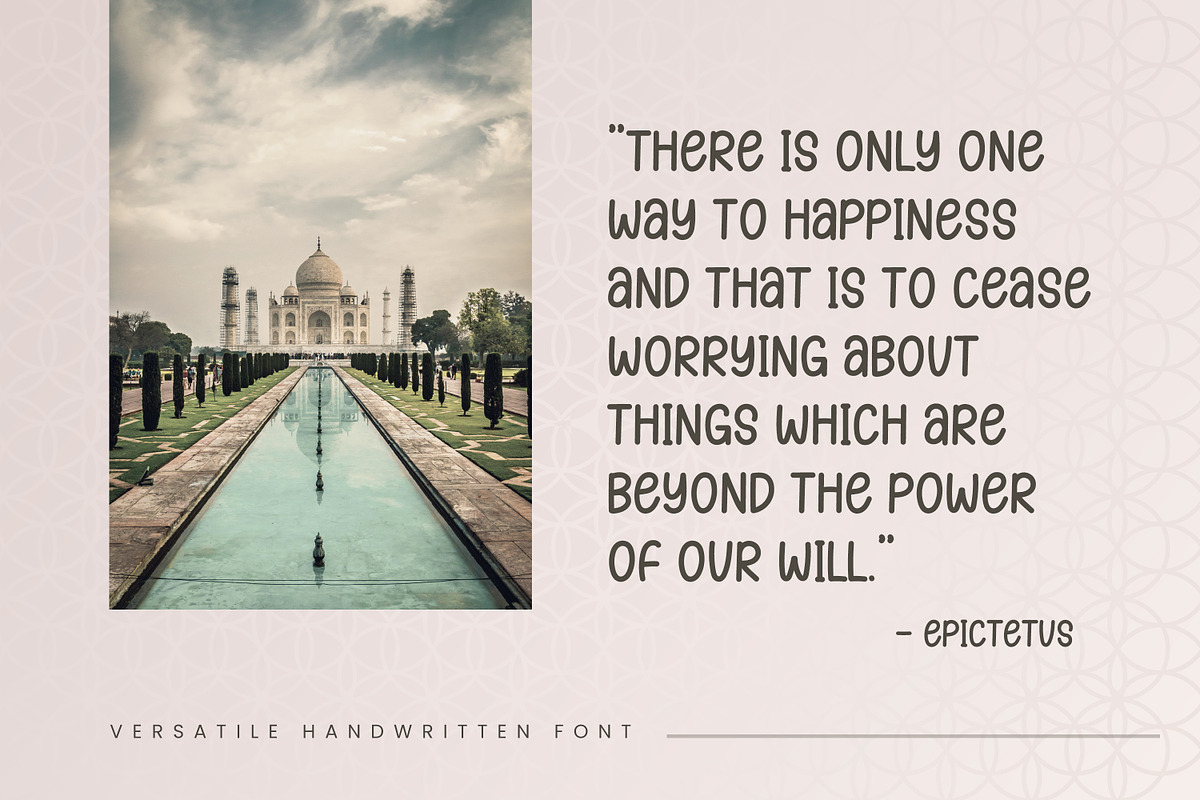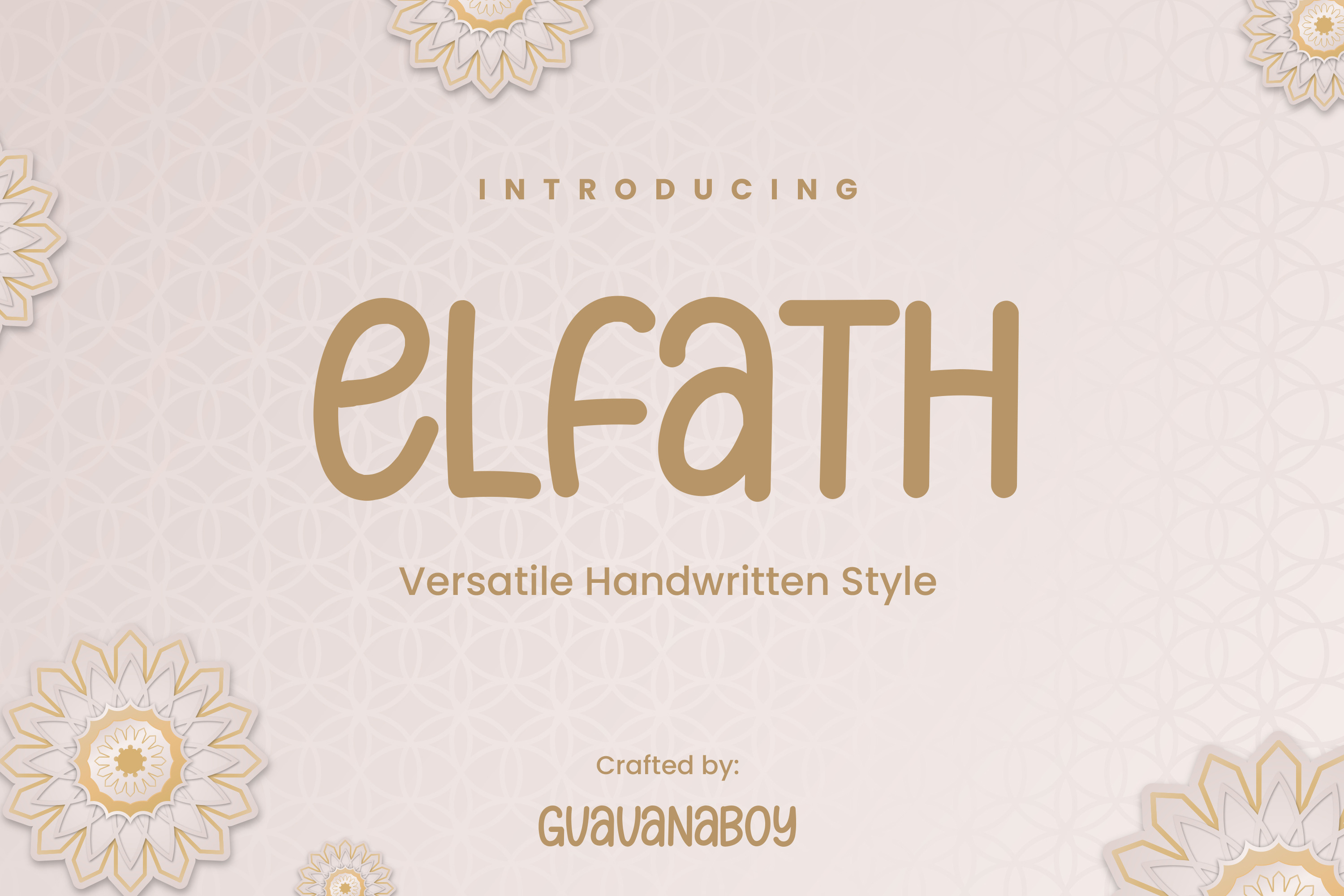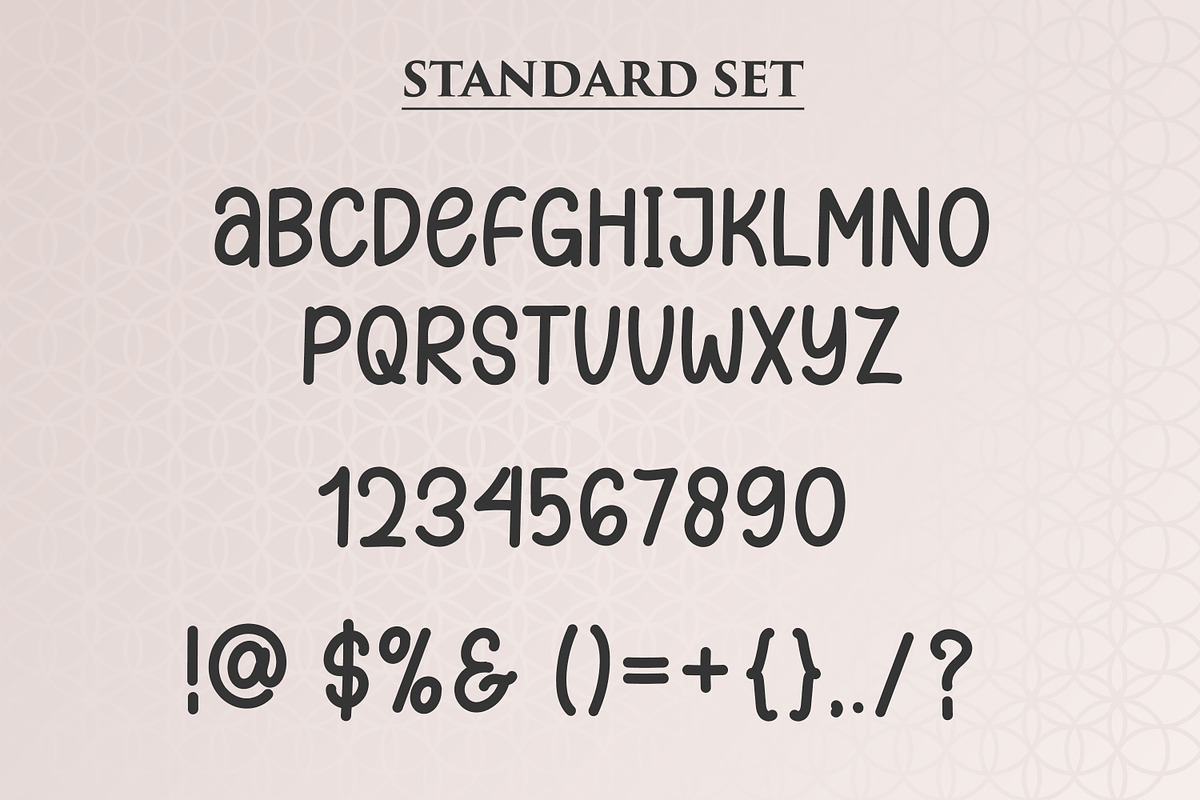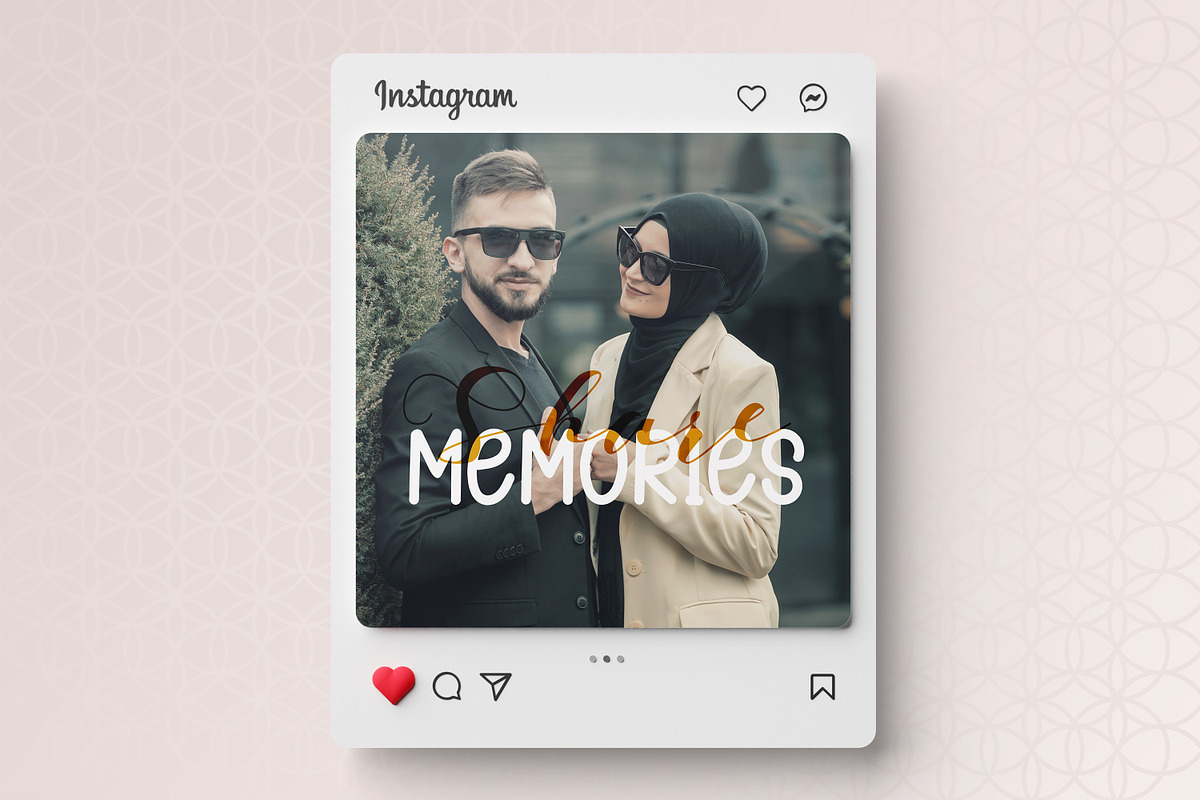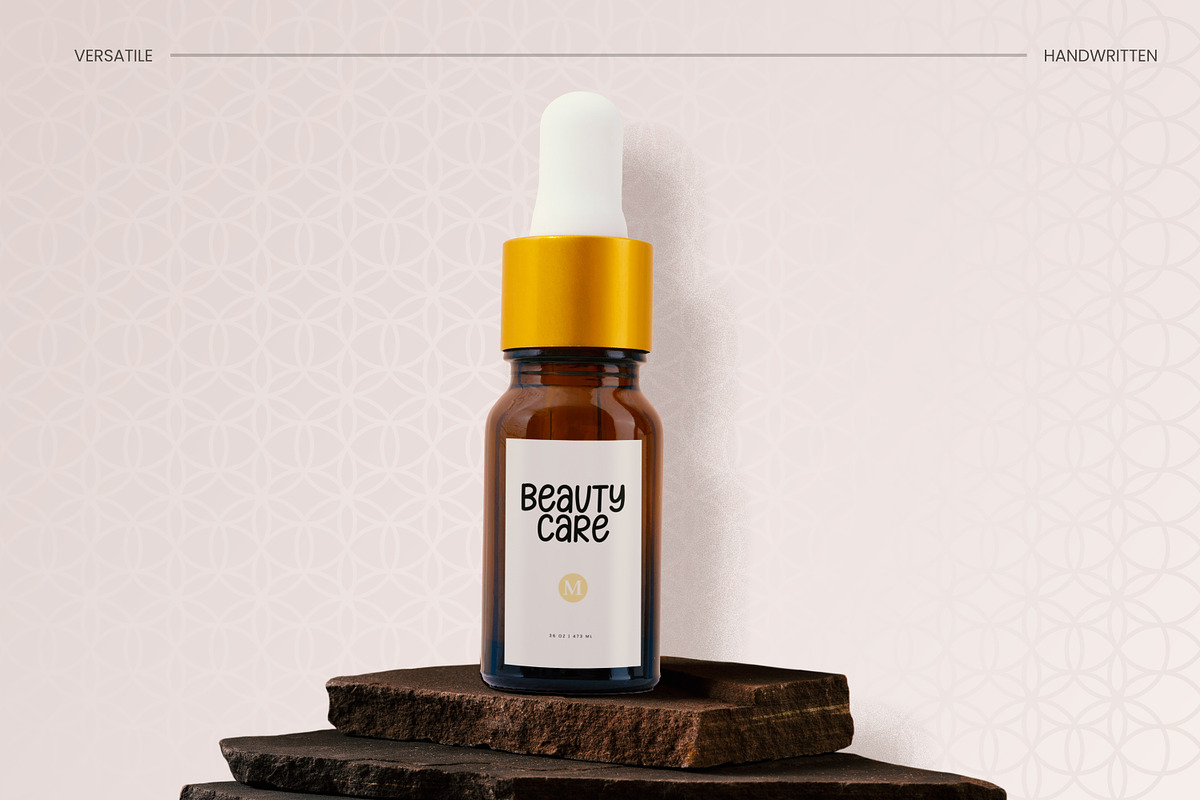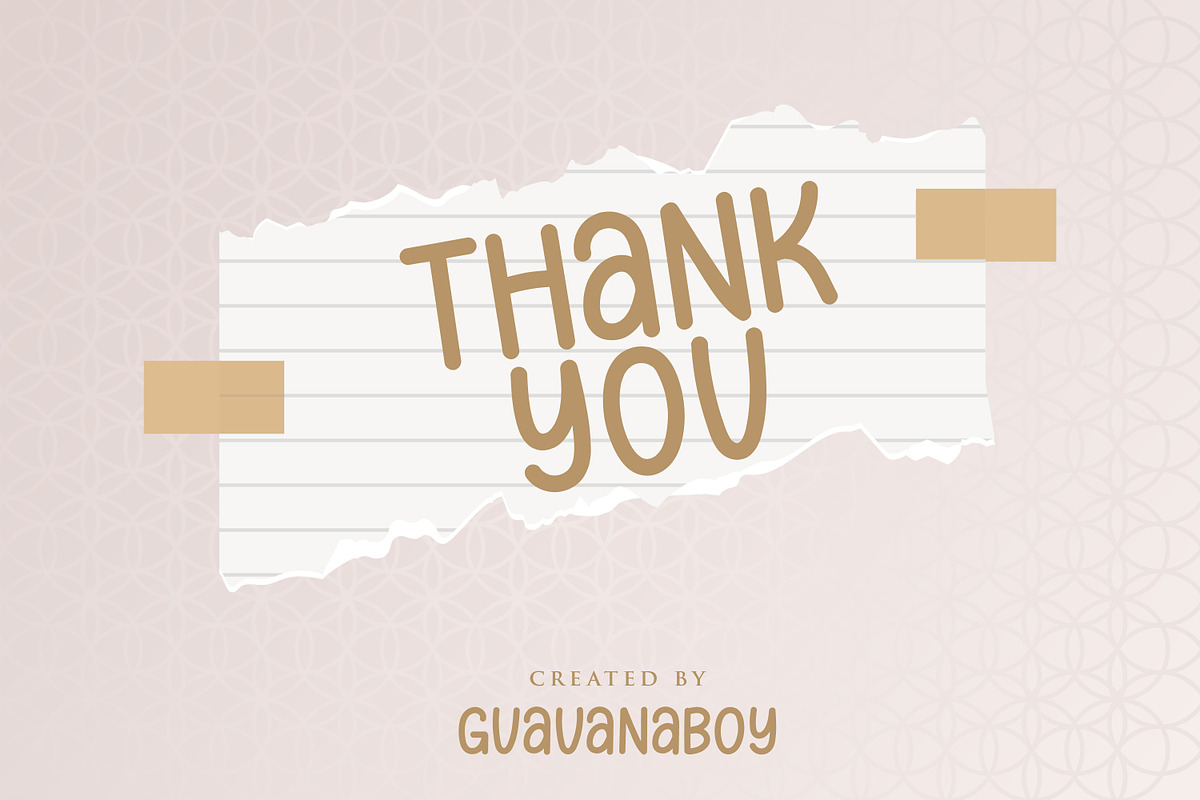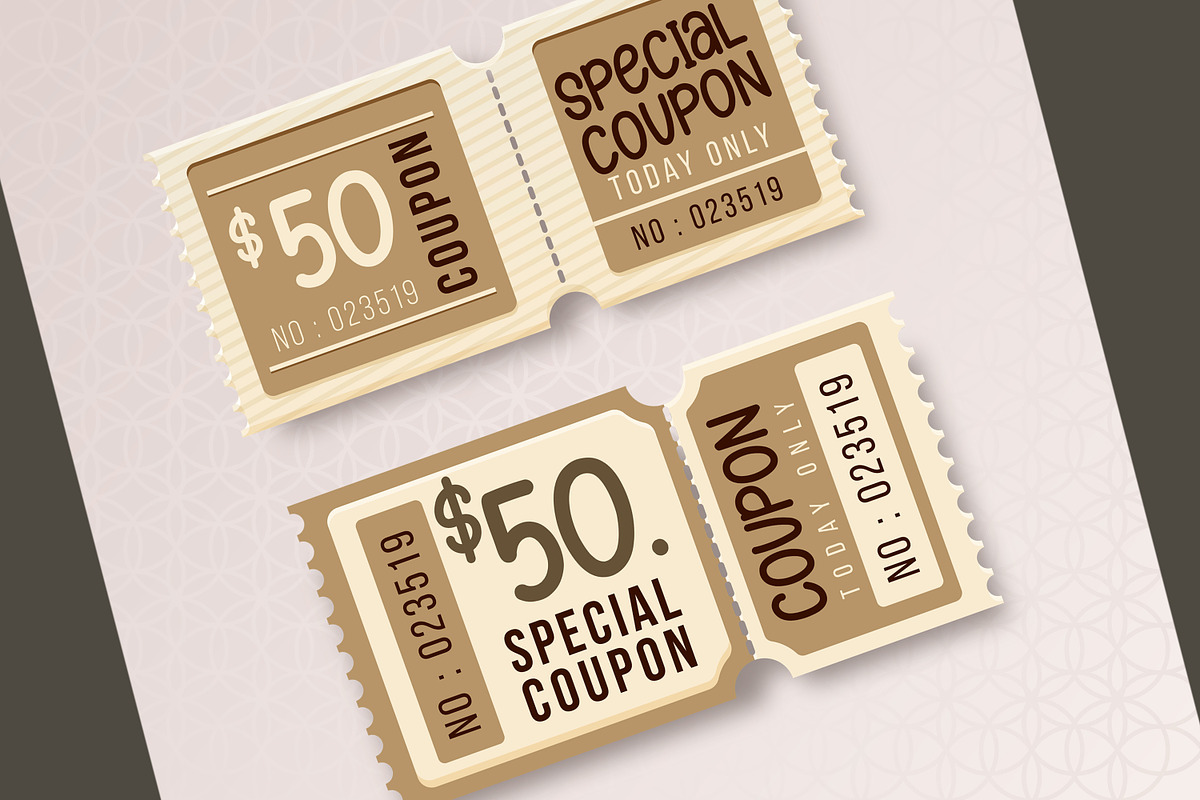
Elfath Handwritten Business Font
ELFATH - A versatile handwritten font. Includes a stylish handwritten-style font to dress up your text - by Guavanaboy.
Perfect for : Social media, Advertisement, Instagram, Logos, branding, wedding invitations, decor, signs, crafting, mugs, shirts, labels, stickers, business cards, greeting cards, posters, social media, planner prints, and websites.